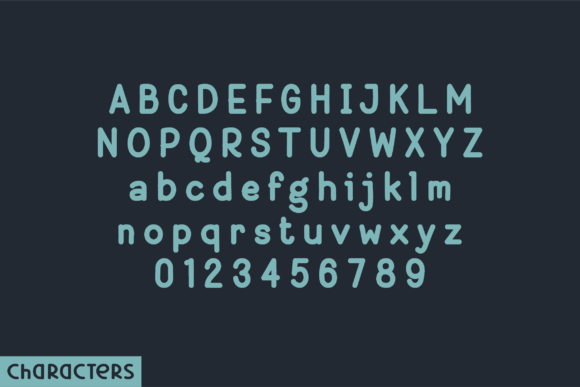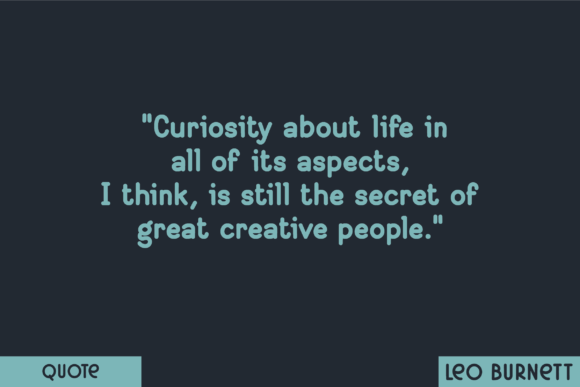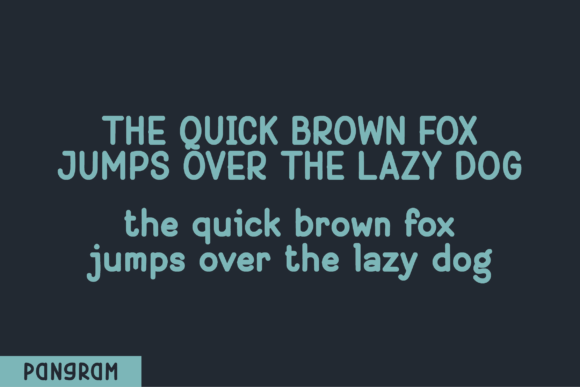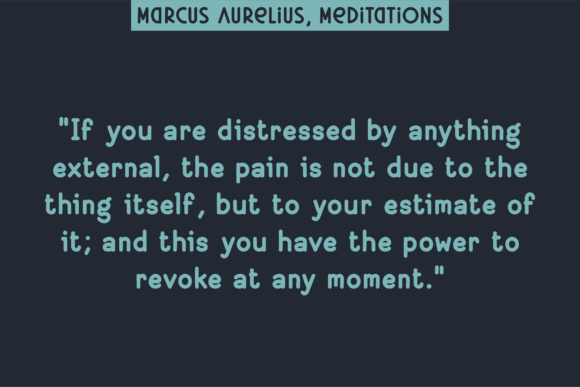
Introduction to Little Lamb Font
Do you remember that moment when you stumbled upon the perfect font for your creative project? The one that makes your design pop and leaves a lasting impression? For designers, finding the right font can be a game-changer. And, if you’re looking for a bold and unique sans serif font that adds a classic touch to your work, look no further than the Little Lamb Font.
This high-quality font is perfect for quotes, notes, tees, logos, social media, and any design that requires a timeless feel. With its transparent background and free download option, it’s an ideal design resource for creative professionals and enthusiasts alike. Whether you’re working on a personal project or a commercial campaign, the Little Lamb Font is sure to elevate your design and leave a lasting impression.
Key Features of Little Lamb Font
- High-quality, hand-drawn design perfect for creative projects
- Unique, whimsical style ideal for children’s books, greeting cards, and other creative projects
Honest Review: Little Lamb Font
I recently had the chance to work with the Little Lamb Font, and I’m excited to share my thoughts with you. As a designer, I’m always on the lookout for high-quality design resources to elevate my creative projects. Little Lamb Font definitely delivers.
- ✨ Beautiful, whimsical design: The font’s playful and gentle style makes it perfect for a variety of creative projects, from children’s books to wedding invitations.
- ⚠️ Limited character set: The font only includes a basic set of characters, which may limit its use in more complex projects.
Overall, I’m impressed with the Little Lamb Font’s quality and versatility. It’s a great addition to any designer’s toolkit, and I’m excited to see how it can be used in future creative projects.
How to Use Little Lamb Font
Tips for Getting the Most Out of Little Lamb Font
Use the Little Lamb Font in conjunction with other design elements to create a cohesive and visually appealing design.
Experiment with different font sizes and colors to add depth and interest to your design.
The Little Lamb Font is perfect for:
Baby shower and nursery decor
Children’s party invitations and decorations